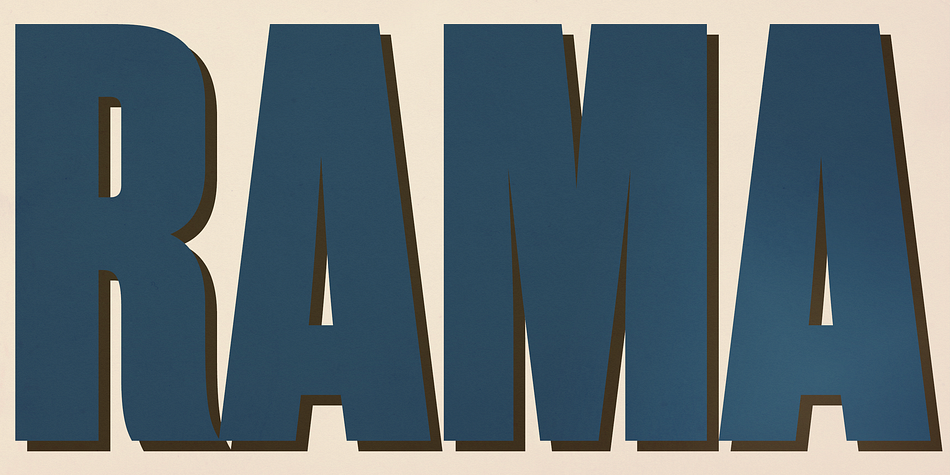
Rama Gothic M
Rama Gothic M is a display sans font family. This typeface has six styles and was published by Dharma Type.
Rama Gothic is an antiqued sans serif designed inspired by 1800s-style wood type.
The all glyphs had been designed carefully to be retro-looking of the old time and to fill all with nostalgia.
This condensed font family with 18 styles will be the best solution for posters, titles and anywhere you need impact.
They include borders, ornaments and frames designed using vintage catalog of Hamilton in 1800s as a model.
Incidentally, -r- has its alternative glyph that can be used with OpenType salt feature.
Rama Gothic is an antiqued sans serif typeface inspired by 19th-century wood type.
Each glyph is carefully crafted to capture the retro aesthetic of the era, evoking a strong sense of nostalgia and vintage charm.
This condensed font family includes 18 styles, making it a powerful choice for posters, titles, and any design that demands bold impact.
Additionally, the letter “r” includes an alternate glyph, accessible via the OpenType salt (stylistic alternates) feature, allowing for extra typographic versatility.